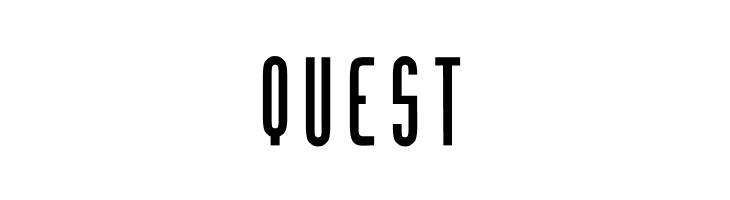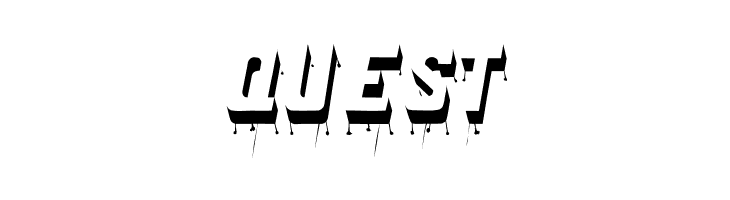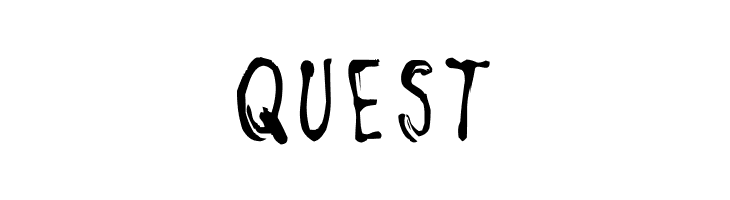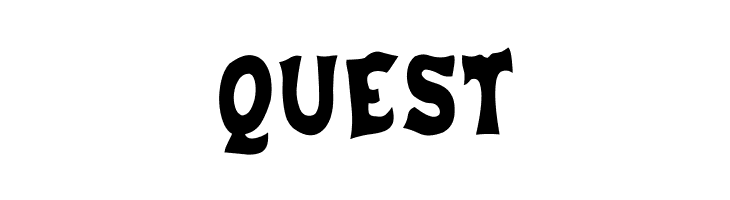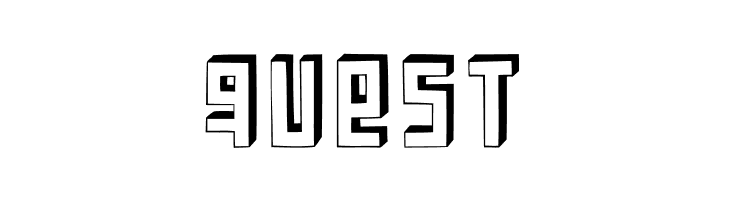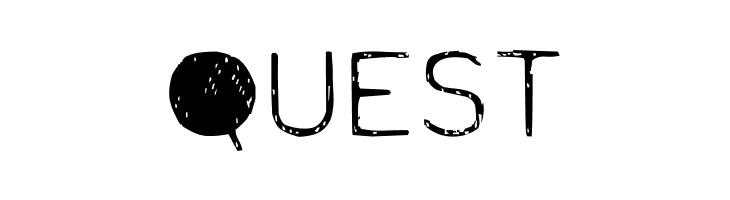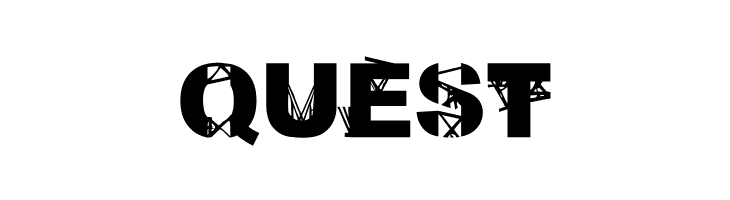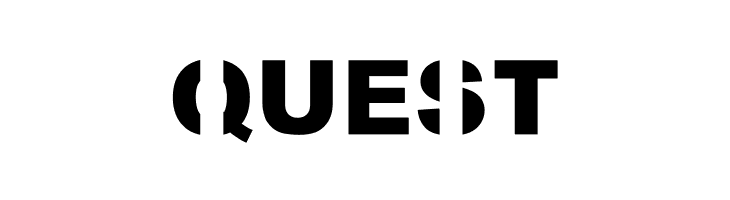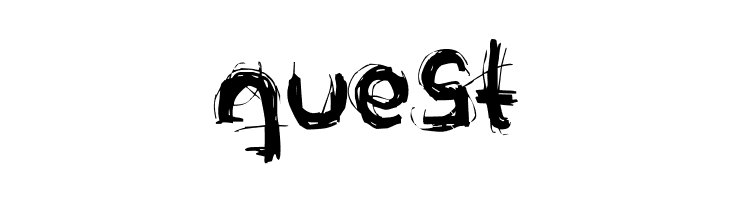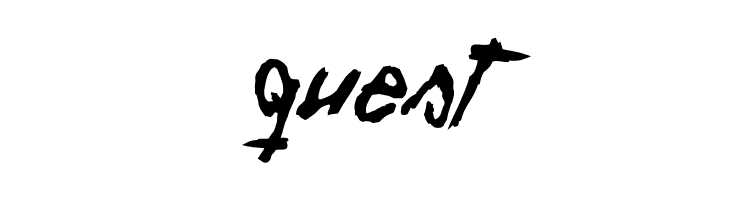
Chingolo Pro Font
A tall, narrow, and modern geometric font with uniform stroke width.
Alsina Ultrajada Font
A bold, modern font with a slightly condensed style and strong presence.
Daft Font Font
A bold, expressive handwritten font with dynamic strokes.
Thapkie MG Font
A geometric, pixelated font with uniform stroke width and angular shapes.
Kill All Fonts Font
A bold, stencil-like font with geometric shapes and an industrial feel.
Cholo Sperry Rand R20 Micro Font
A distressed, hand-drawn font with a grungy, graffiti-like style.
Kill All Fonts Just Aggression Font
A bold, distressed font with a chaotic, grunge-like appearance.
Cementeria Font
A bold, playful font with thick, uneven strokes and a whimsical, hand-drawn style.
Bloqueada Font
A bold, geometric font with a three-dimensional, modern design.
Letrograda Font
A distressed, grunge-style font with a hand-crafted, vintage appearance.
Negada Font
A playful, hand-drawn font with an artistic and whimsical style.
Reienhardt Font
A chaotic, hand-drawn font with irregular strokes and dynamic movement.
Venerada Font
Bold, angular font with a 3D shadow effect and italicized style.
Gayacos Primaria Bastarda Font
Tapi Font
A geometric, angular font with a modern and futuristic style.